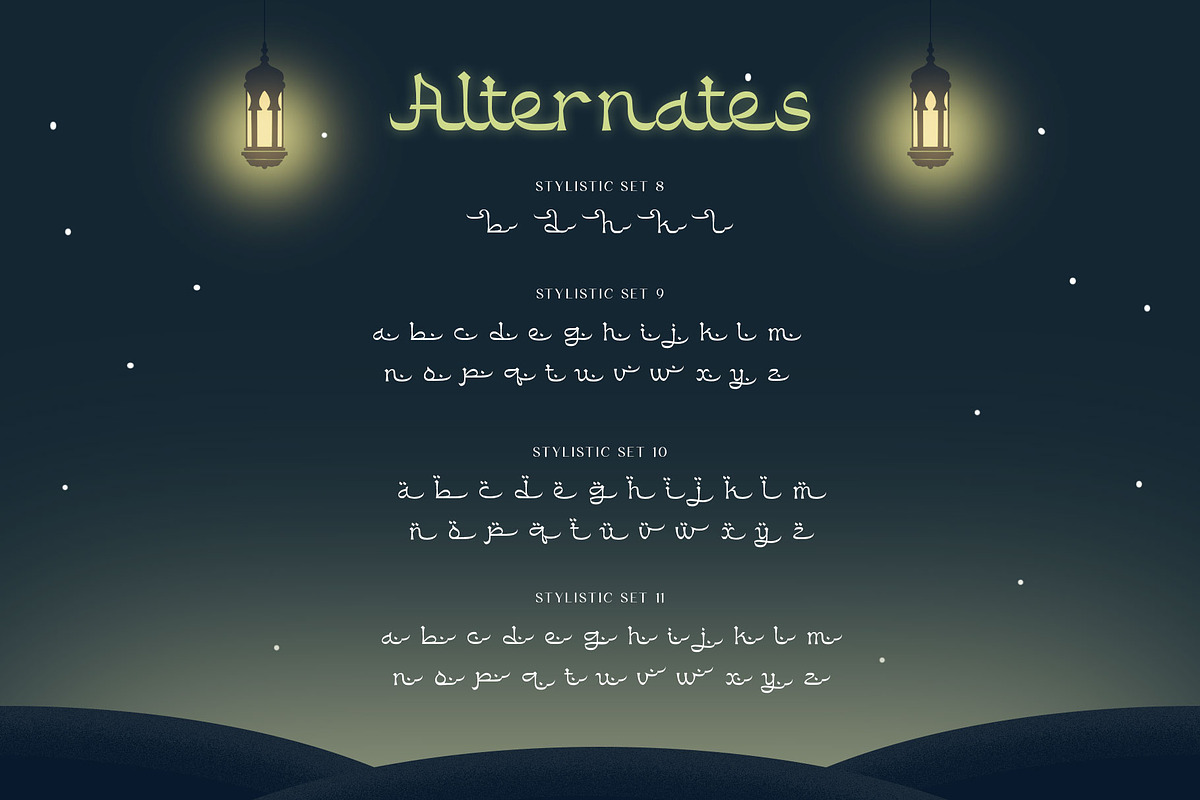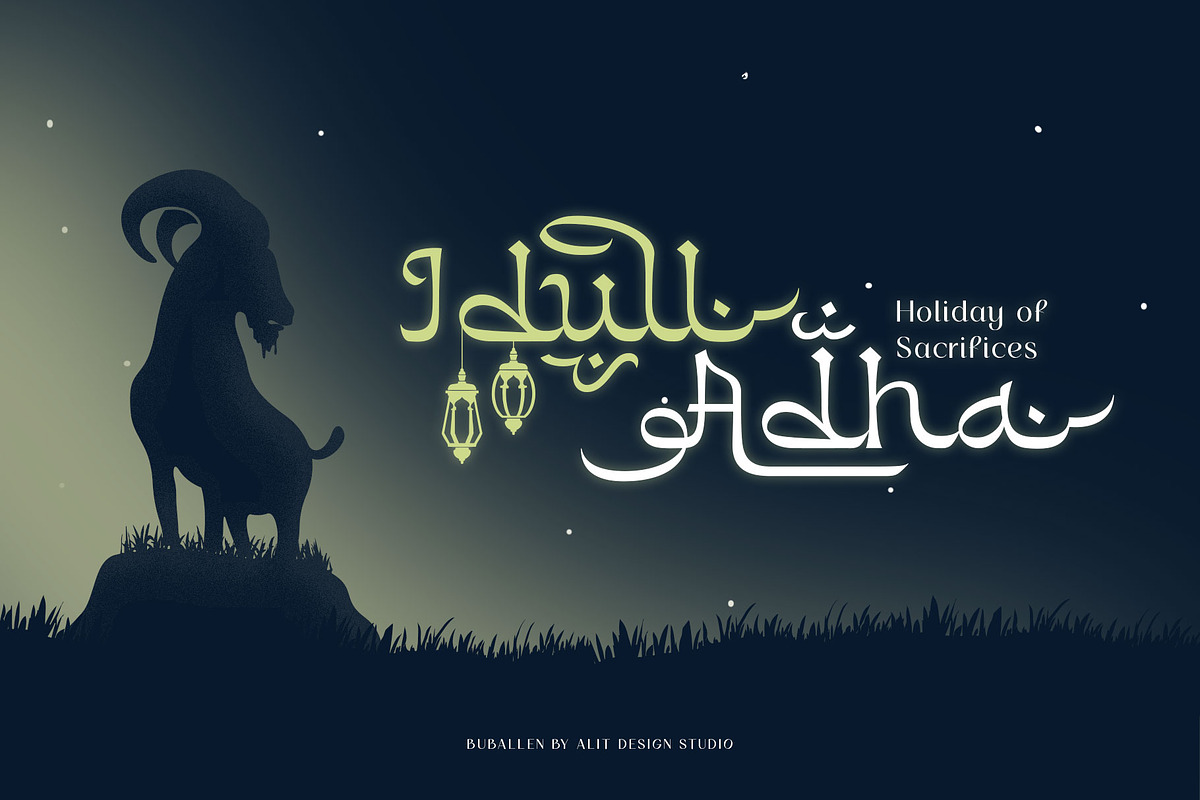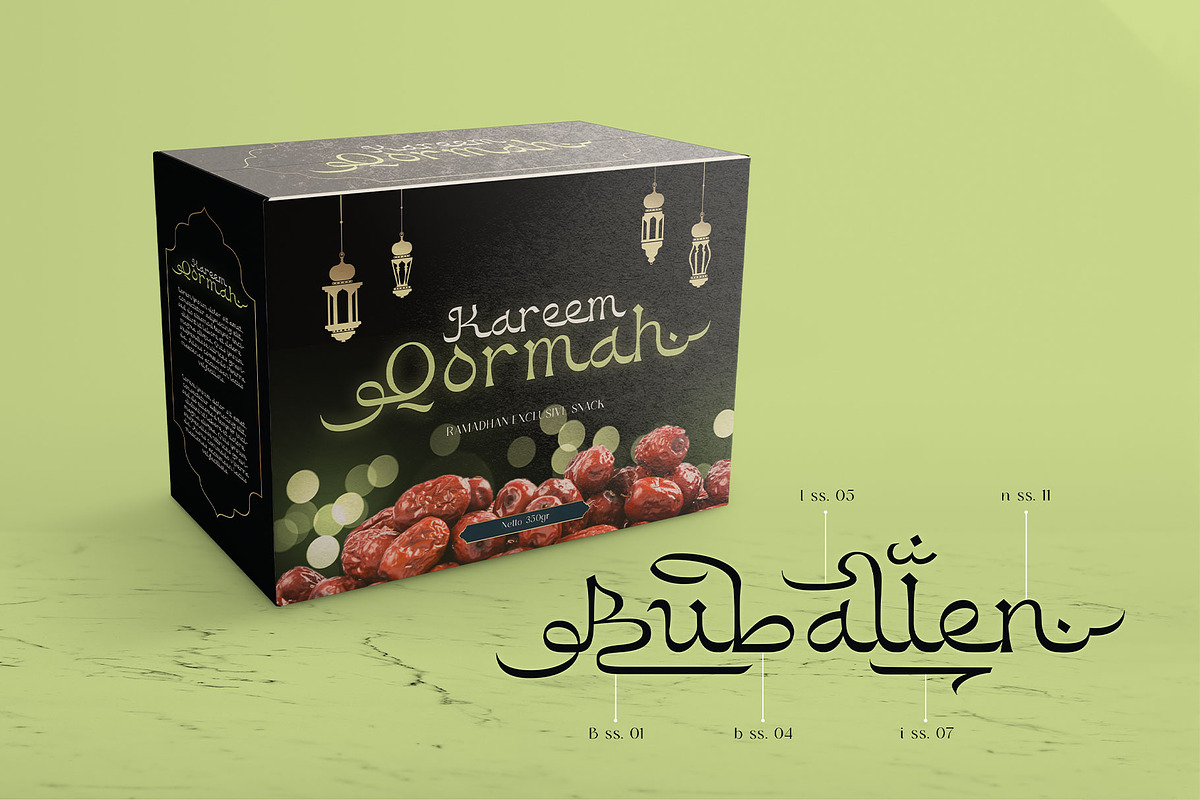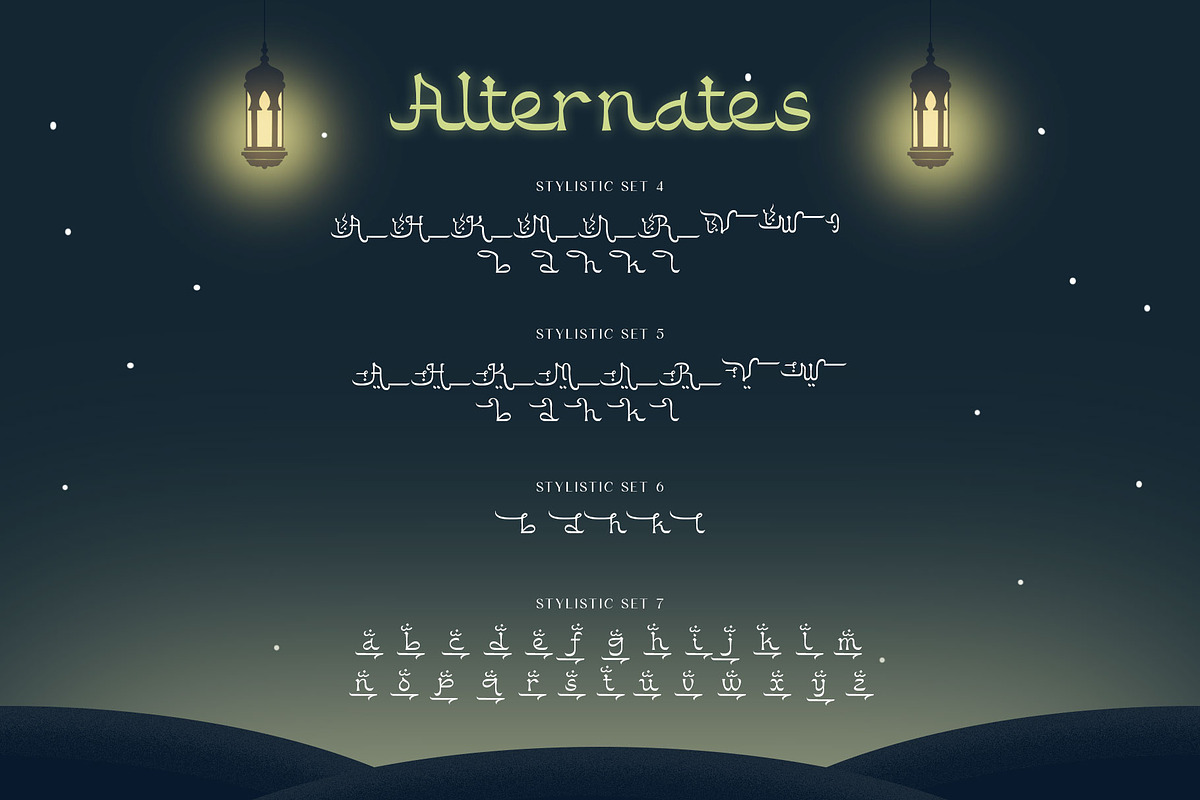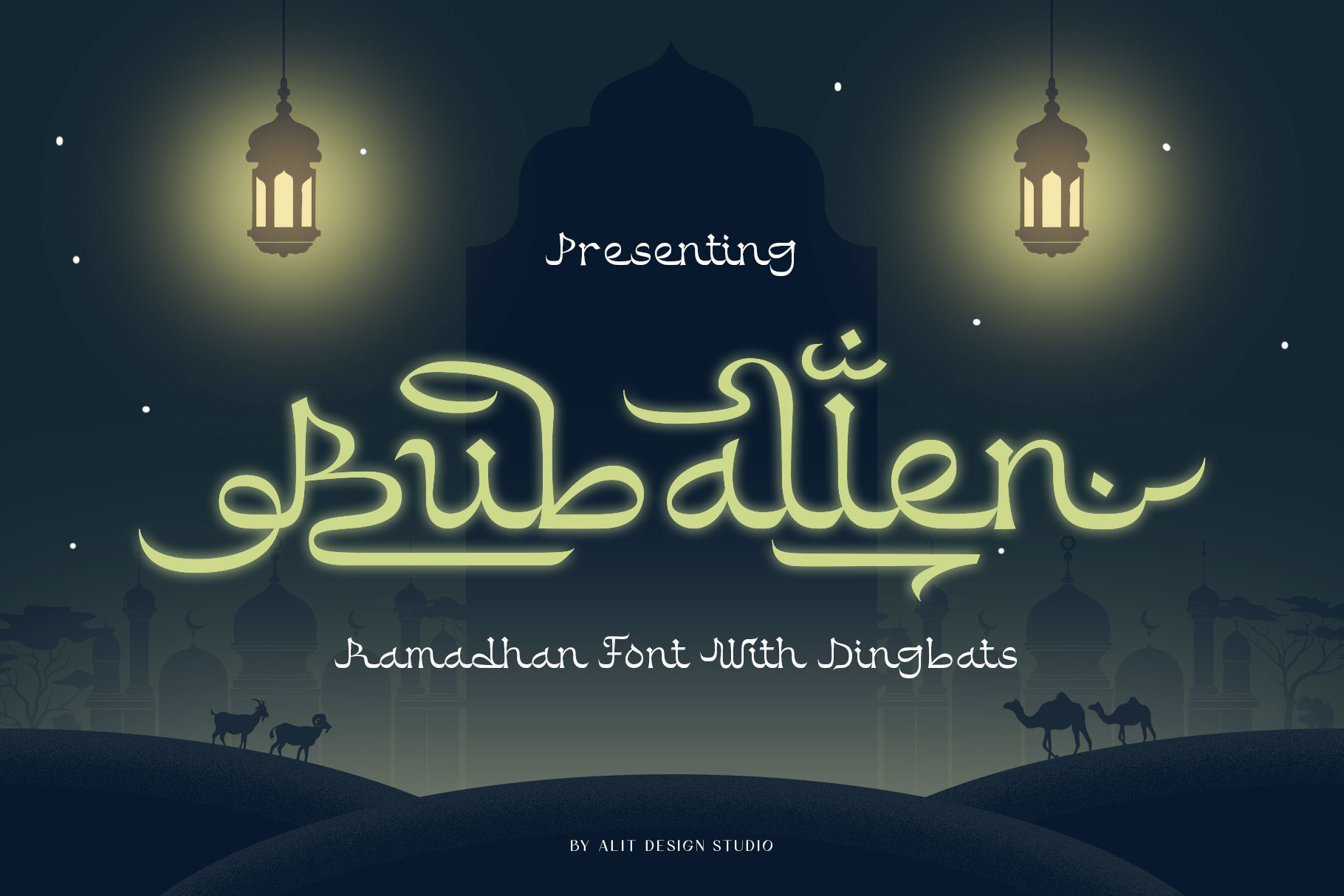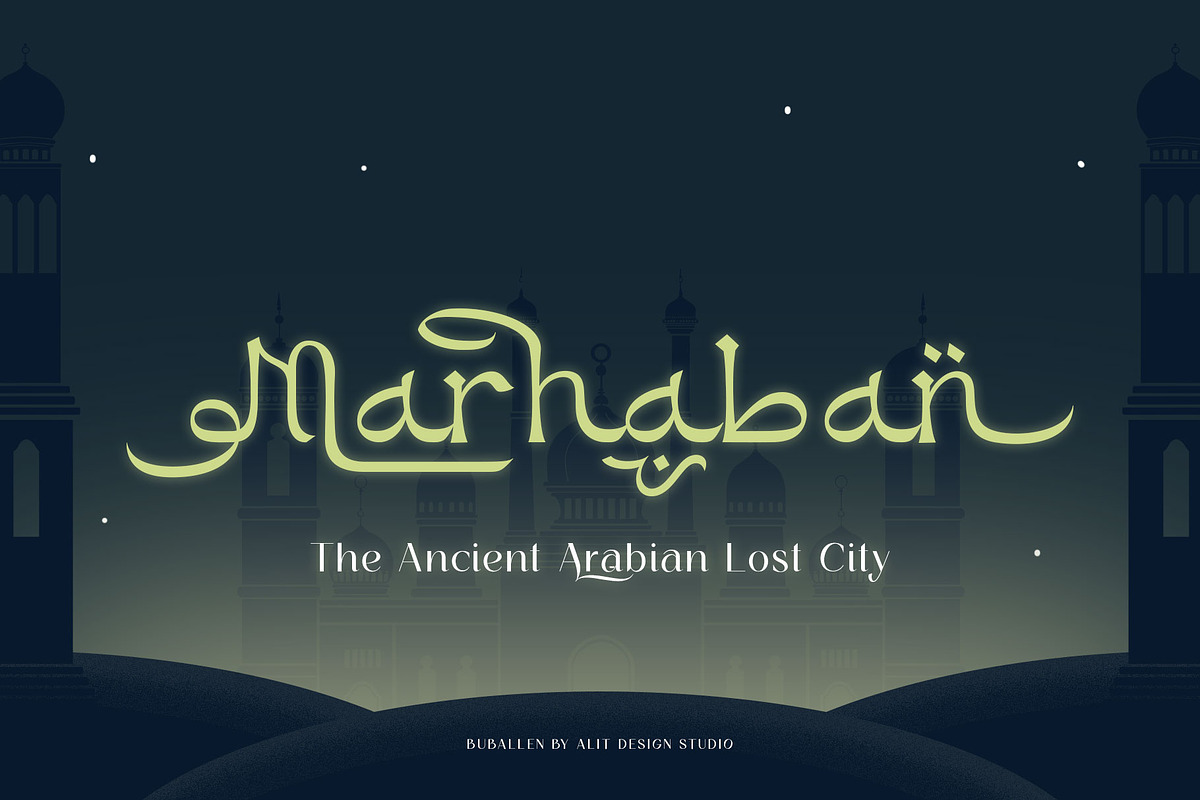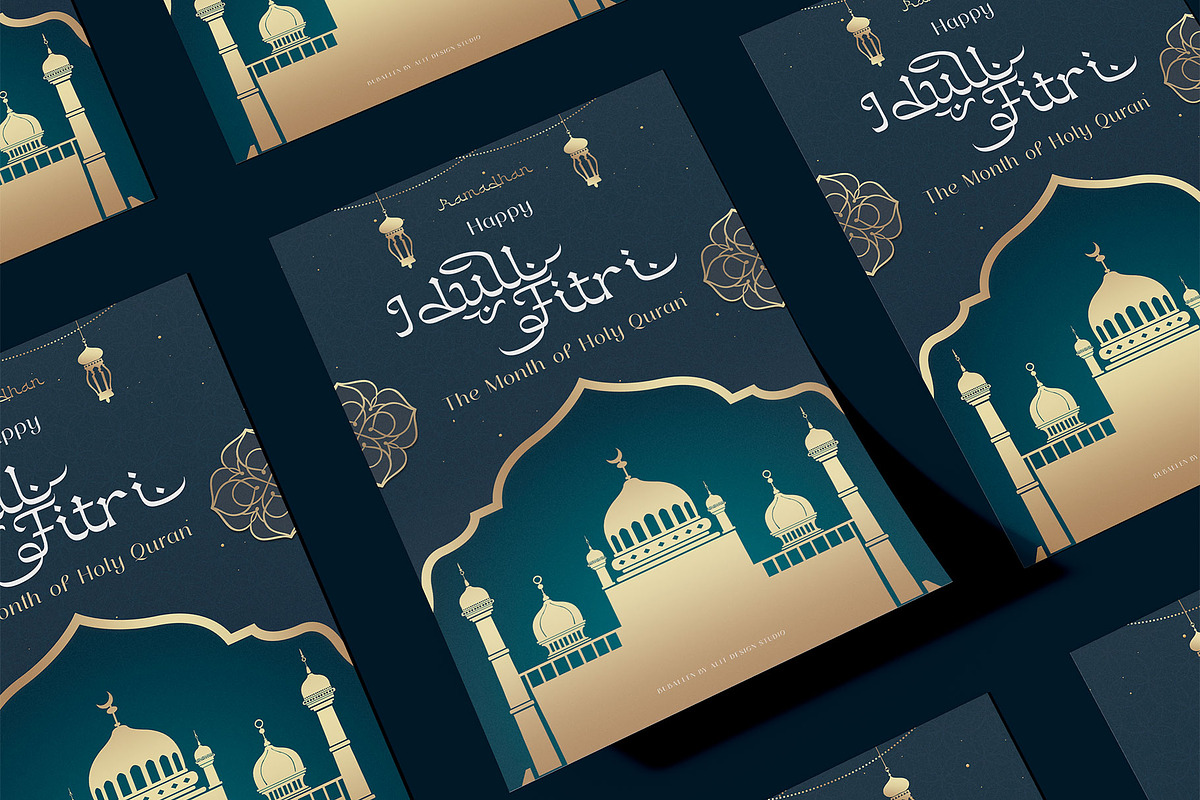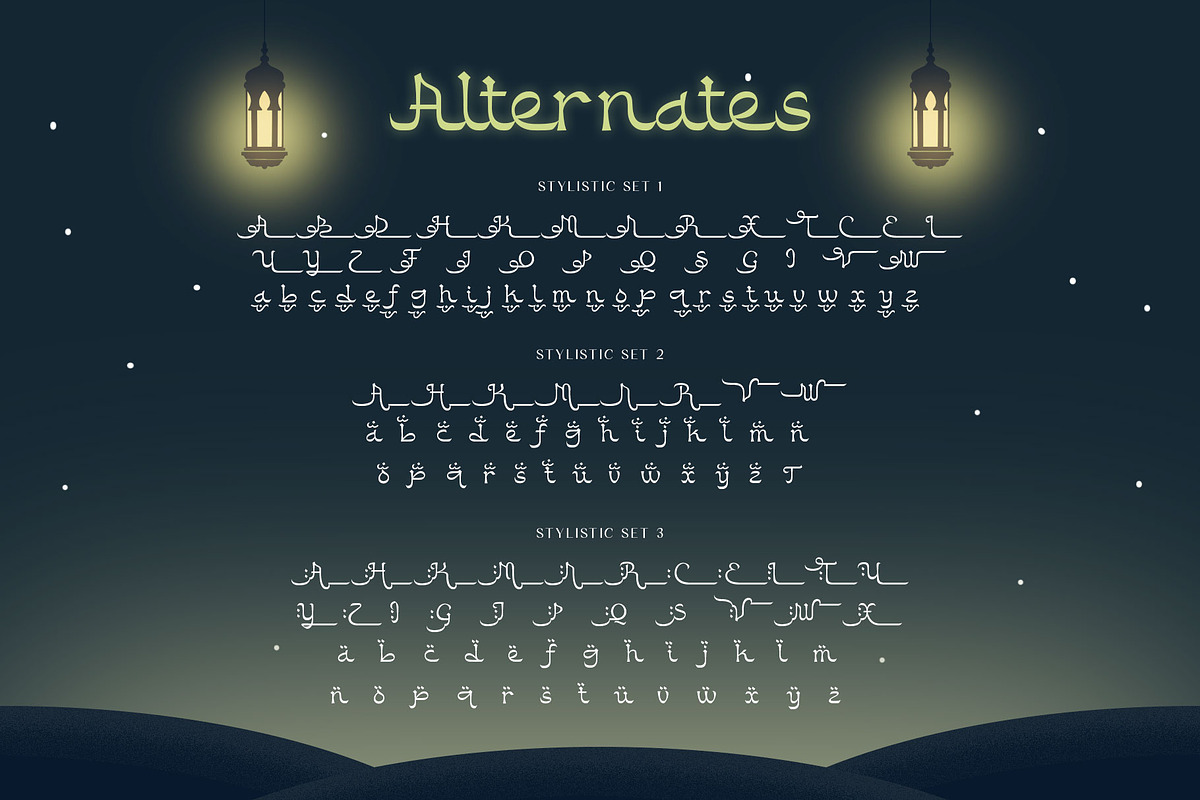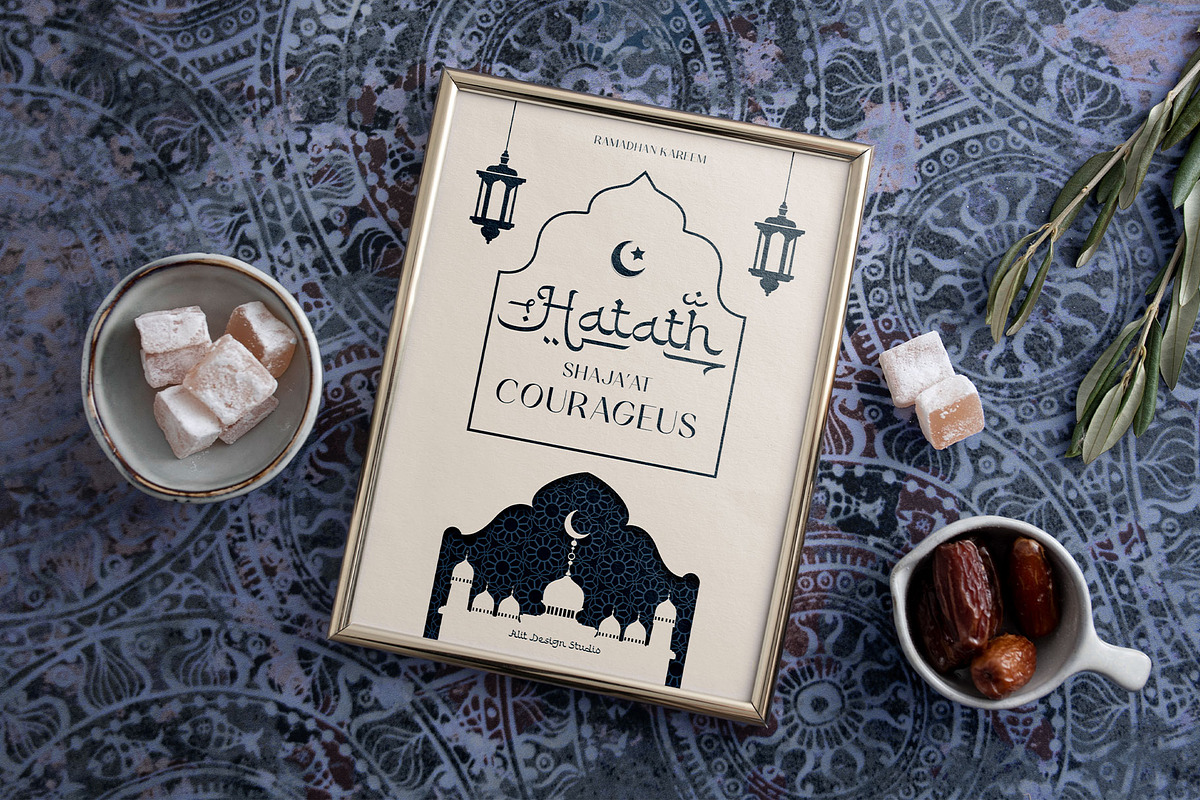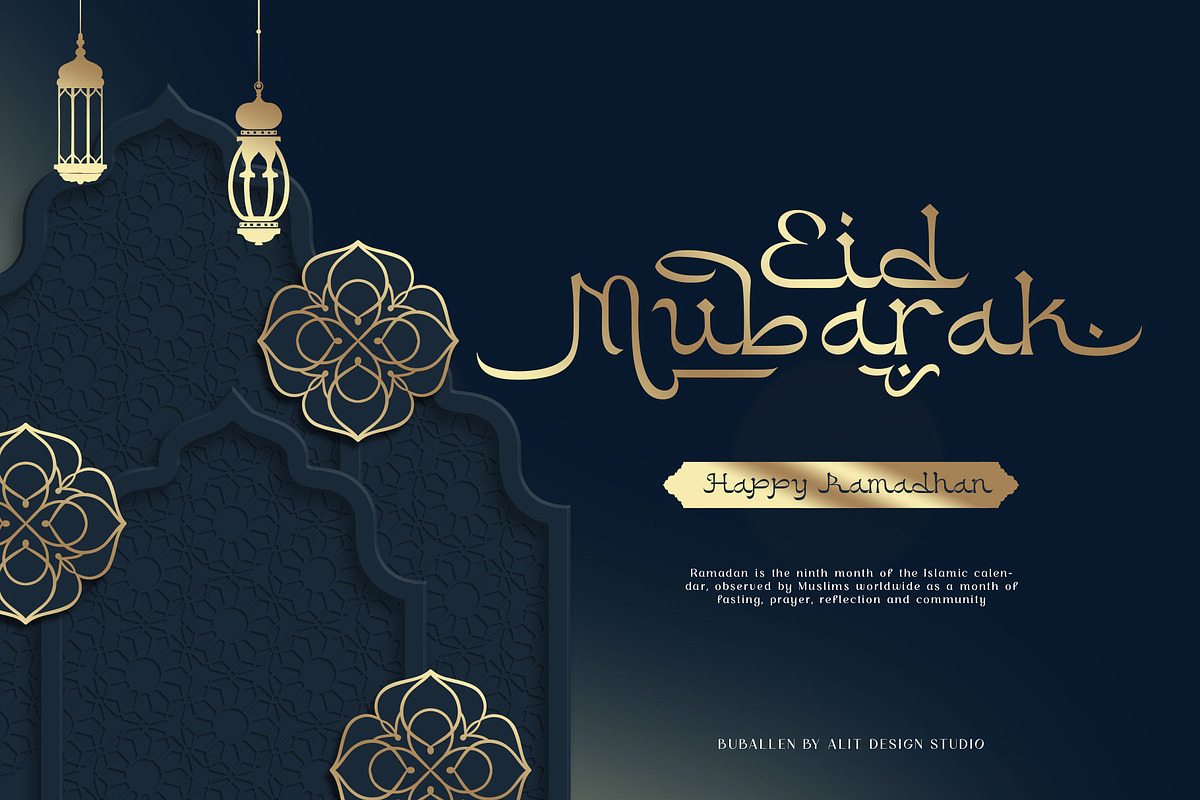
Buballen Arabic Typeface
Presenting 🕌Buballen Arabic Typeface🕌 by alitdesign.
Buballen Arabic Typeface is an elegant and sophisticated font product that is designed to add a religious and Islamic touch to your designs, making it an excellent choice for Ramadan promotions and other Islamic design projects. The font's carefully crafted design is sure to impress your audience and enhance the visual appeal of your designs.
One of the standout features of Buballen Arabic Typeface is its support for PUA Unicode, which ensures that users can easily access all of the font's characters without any issues. The font also supports multilingual characters, making it perfect for use in various languages other than Arabic.
With 739 glyphs characters, Buballen Arabic Typeface offers a vast range of options, allowing users to create unique and eye-catching designs. The font's characters are well-crafted and easily readable, making it an excellent choice for any design that requires an Arabic font.
As a bonus, Buballen Arabic Typeface comes with a Buballen Dingbats font that includes a collection of 304 Islamic symbols and ornaments. These extra glyphs can be used to add a Islamic touch to your designs and enhance their visual appeal, especially during the holy month of Ramadan.
In summary, Buballen Arabic Typeface is a versatile and elegant font product that is perfect for Ramadan promotions and other Islamic design projects. With PUA Unicode support, multilingual characters, 739 glyphs characters, and a bonus Buballen Dingbats font with 304 characters, this product offers everything you need to create stunning designs that resonate with your audience.